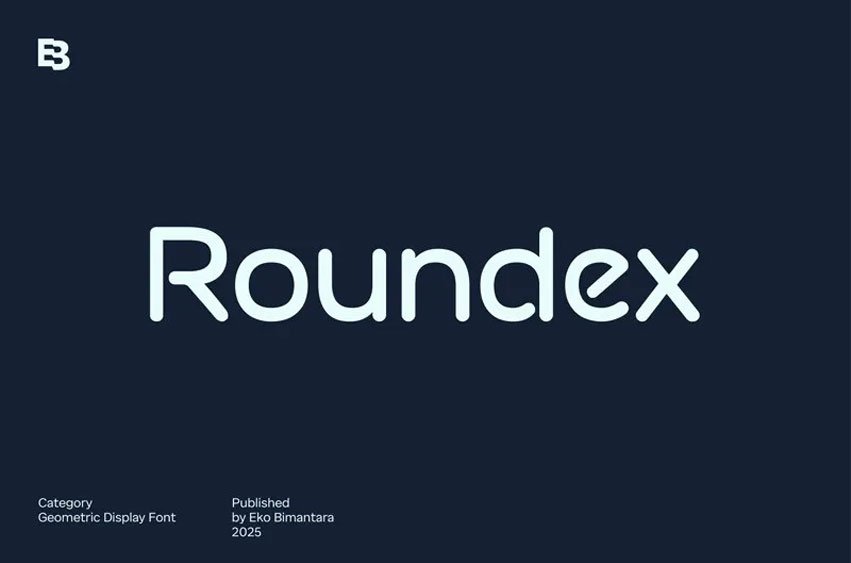
Roundex Font is a geometric sans-serif typeface that helps designers create contemporary designs that need a soft and approachable feel. All the terminals are rounded minimizing rough angles while promoting a natural friendly warmth for approachability.
This typeface from VP Creative Shop excels in casual website UIs, children’s educational apps, and eco-friendly product branding. Its thin weights are not good for paragraphs. However, you can combine it with traditional serifs with defined and sharp terminals for an effective visual impact.